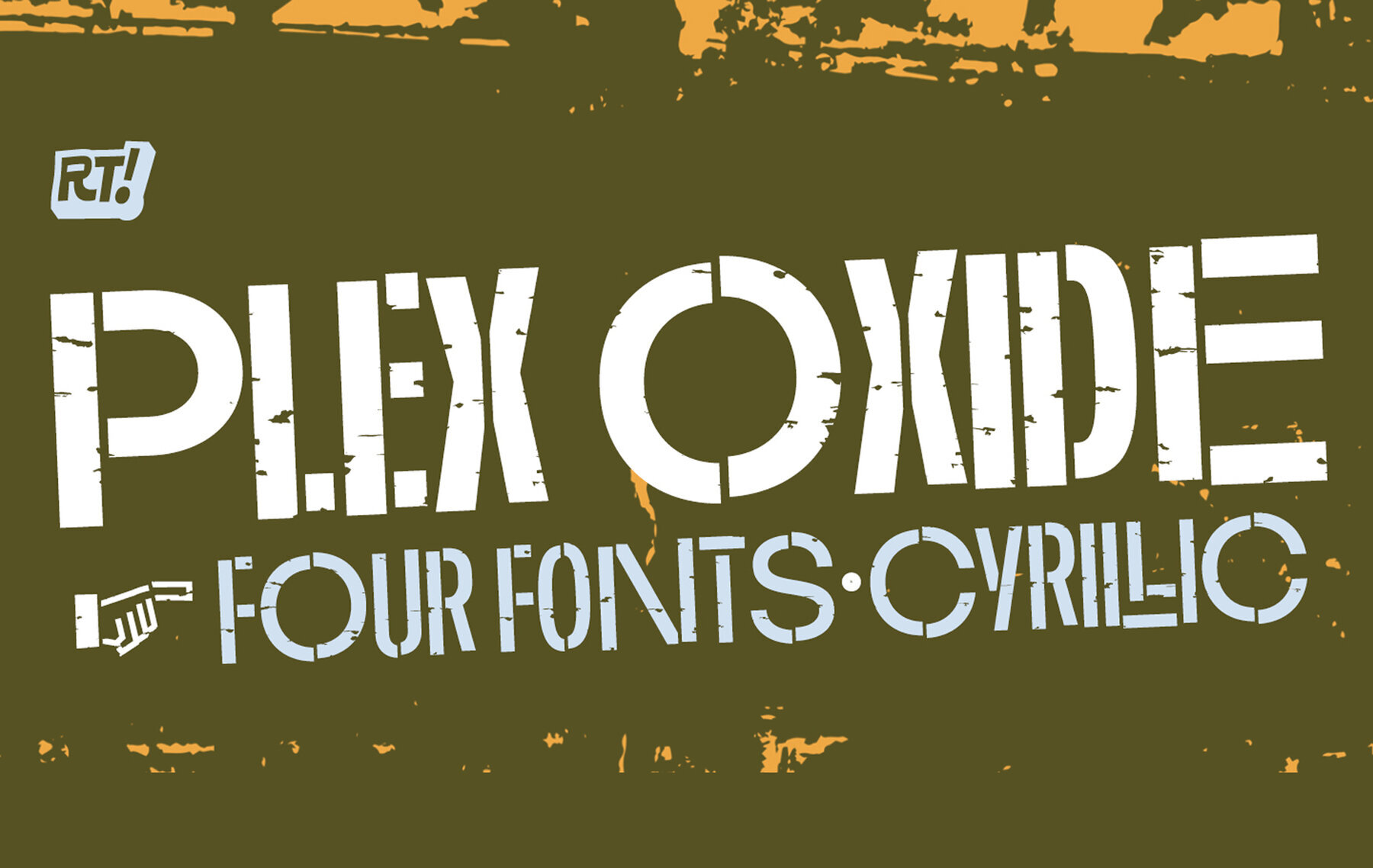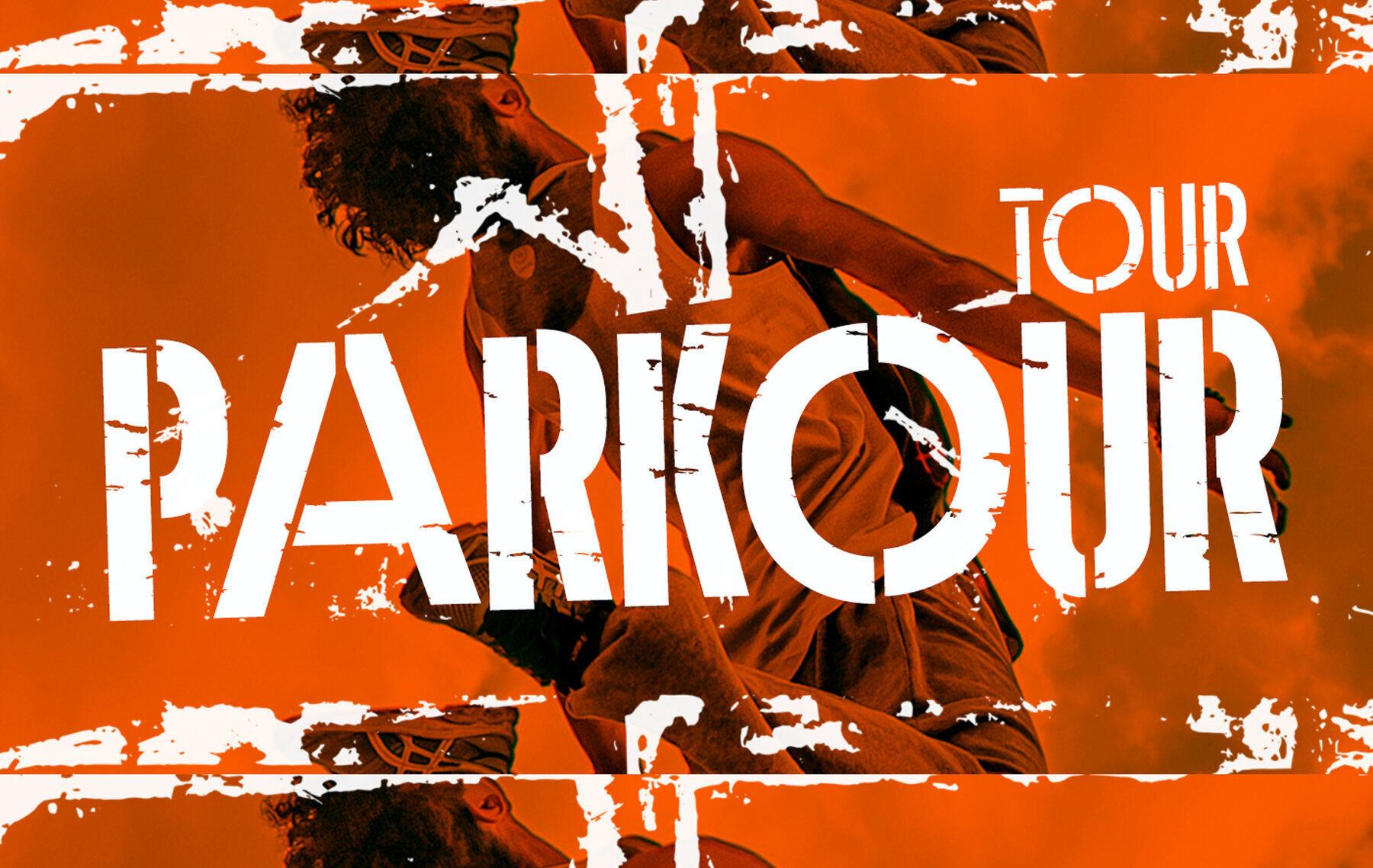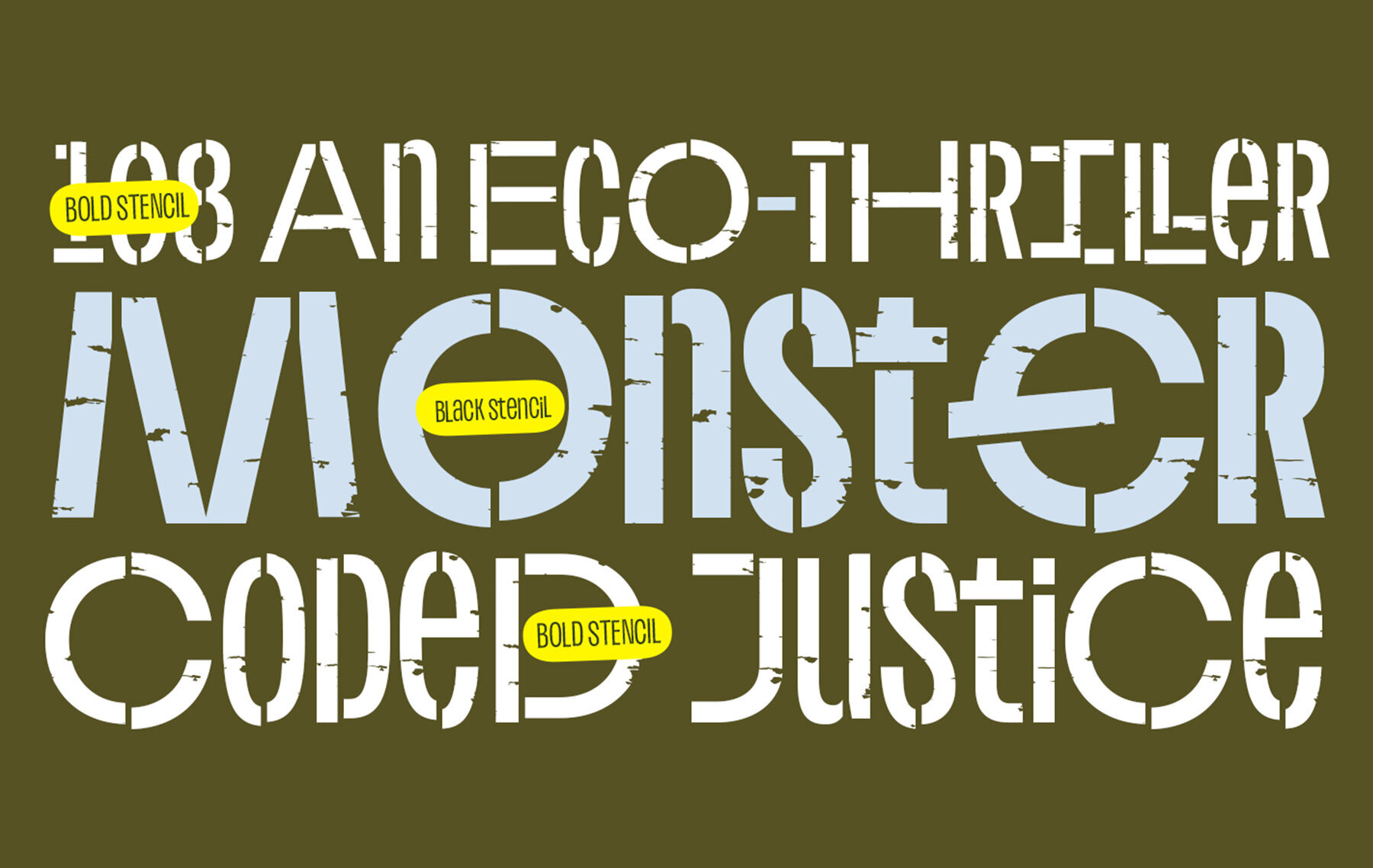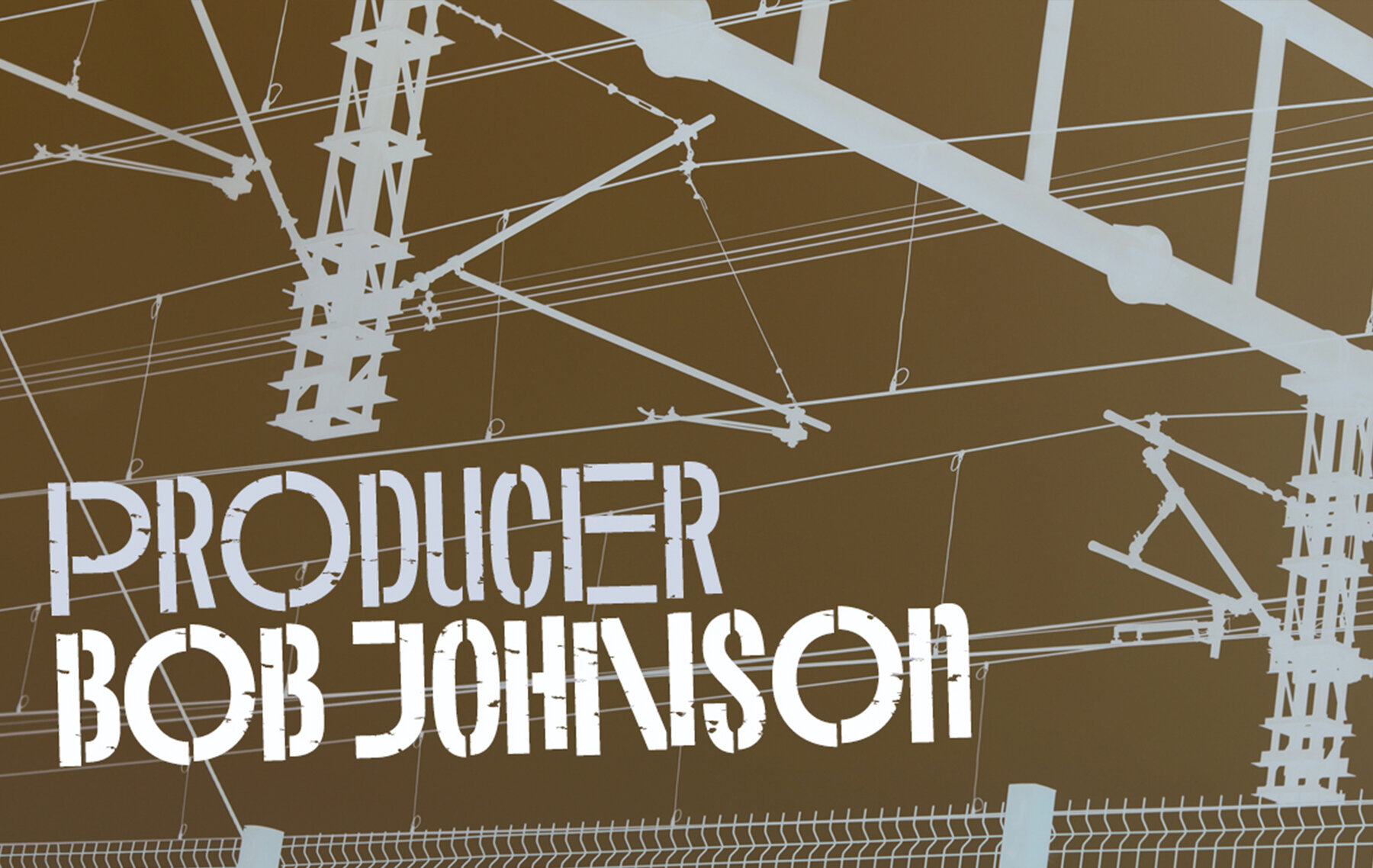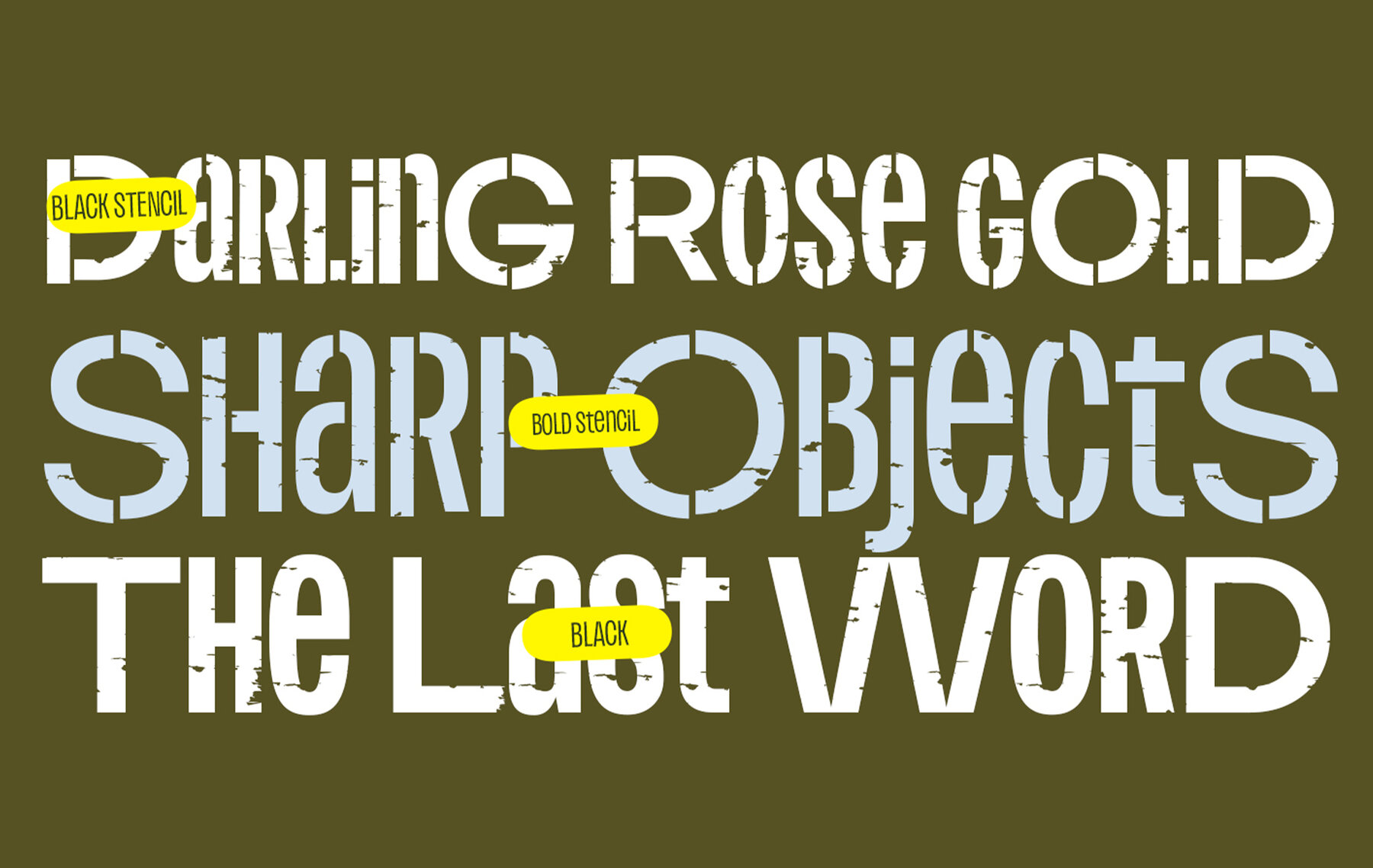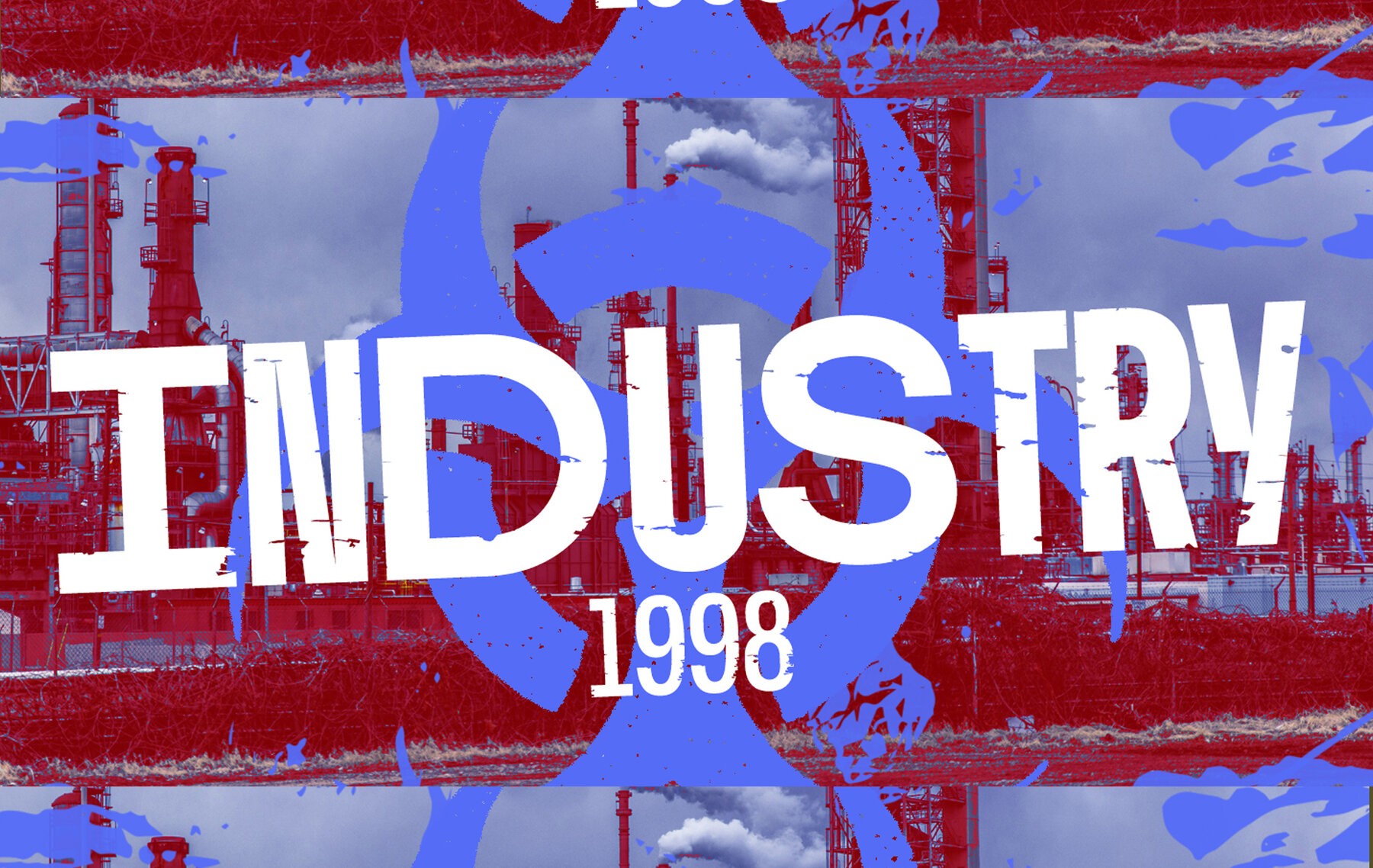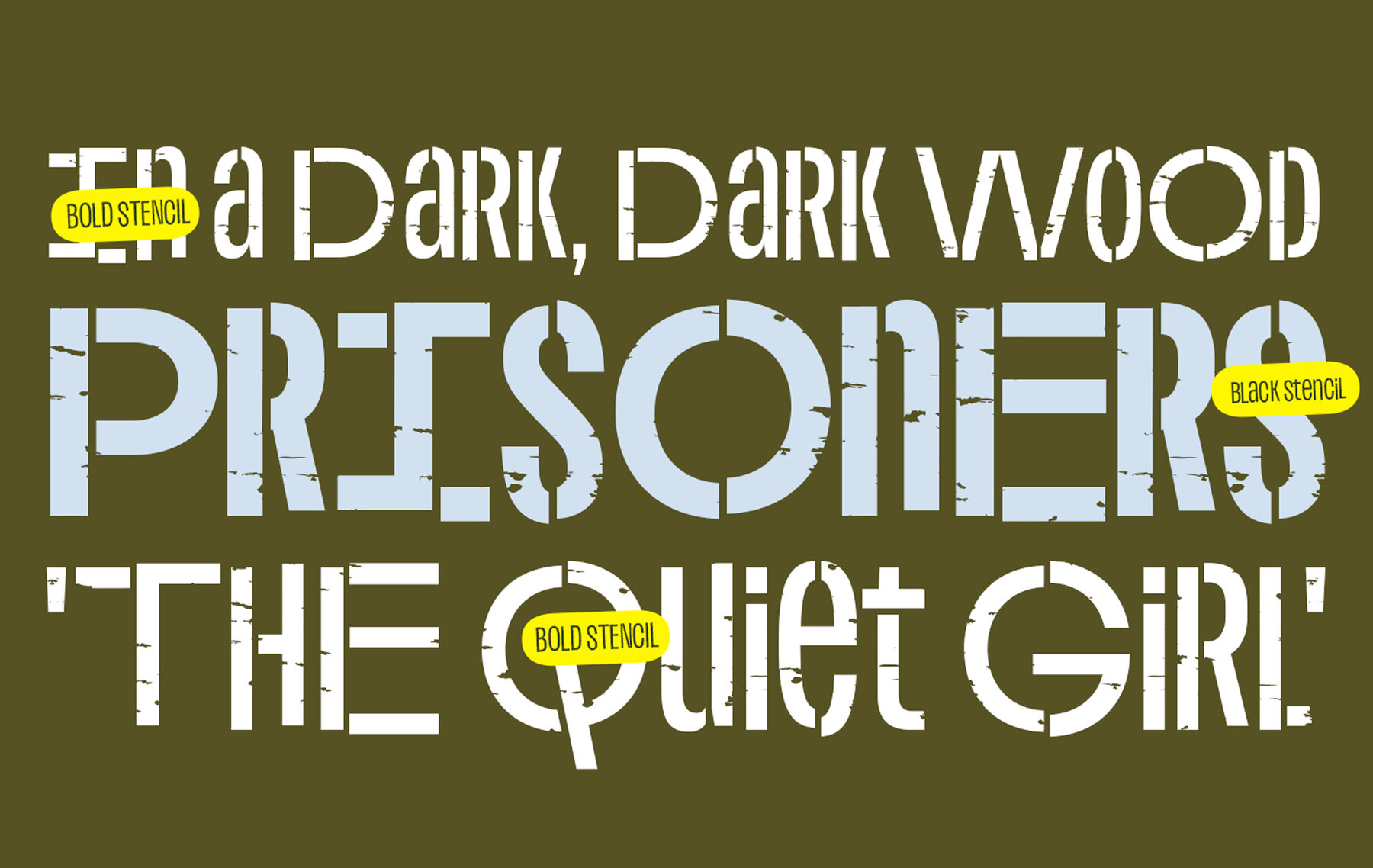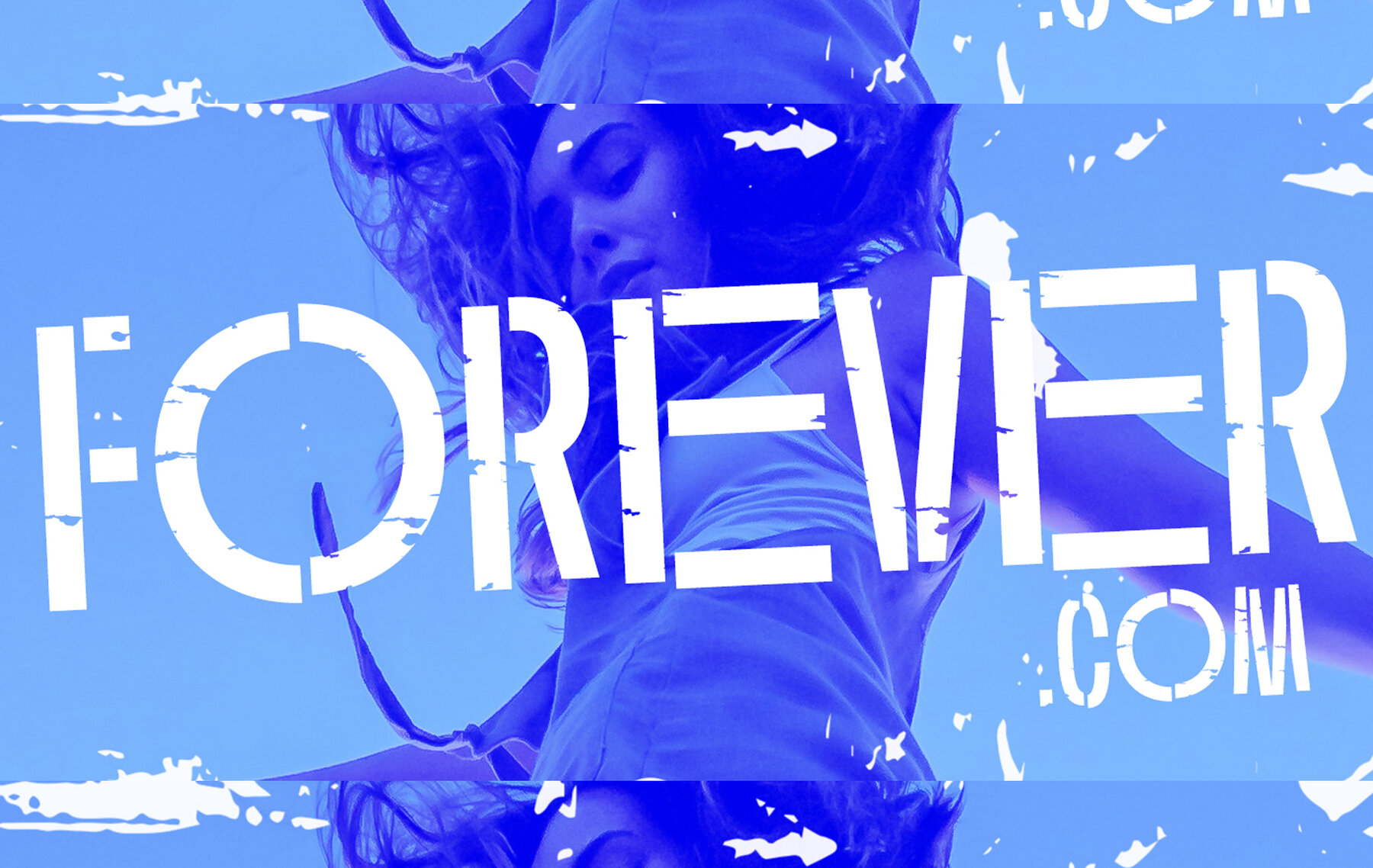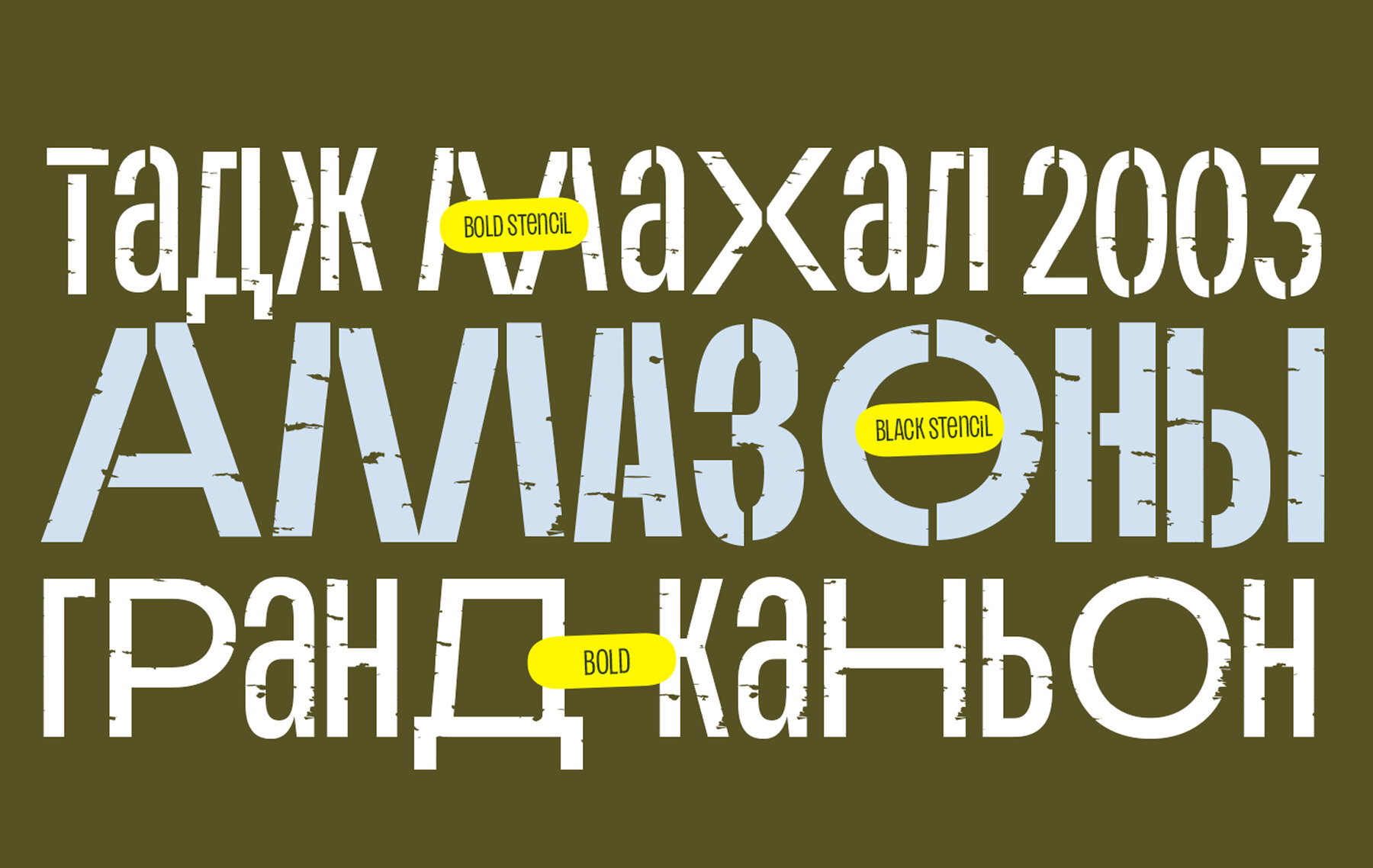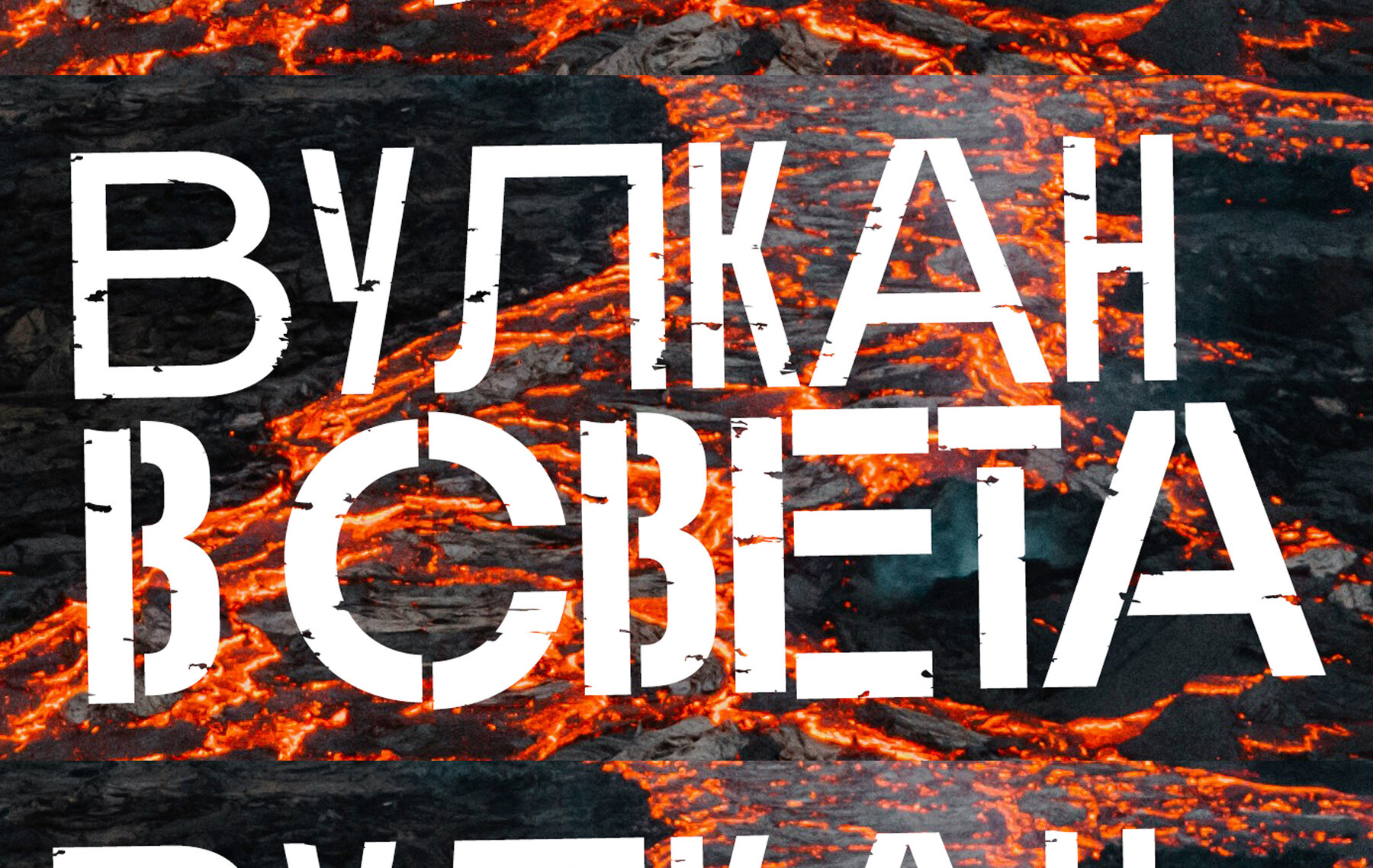
Plex Oxide Font
Plex Oxide Bold
Plex Oxide BoldStencil
Plex Oxide Black
Plex Oxide BlackStencil
Plex Oxide offers a dynamic typographic experience, building upon the versatility of Plex Beta. It features engaging textures perfect for crafting compelling action and thriller titles. This font comes in four distinct styles: Bold, Bold Stencil, Black, and Black Stencil. These styles are particularly suitable for creating bold, impactful titles that demand attention.Plex Oxide: Textured Type for Thrilling Titles